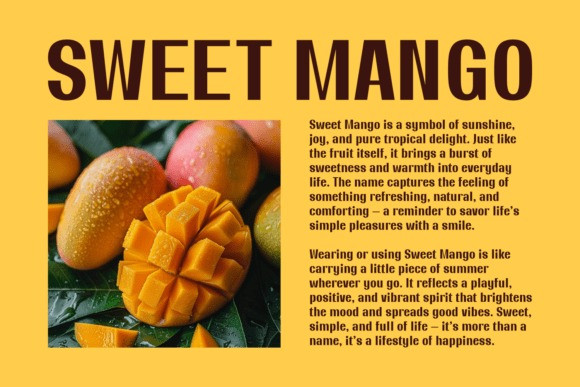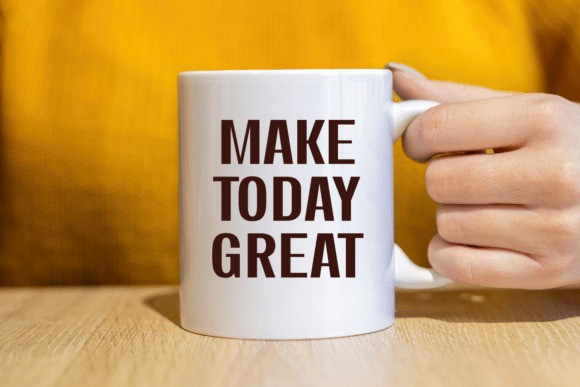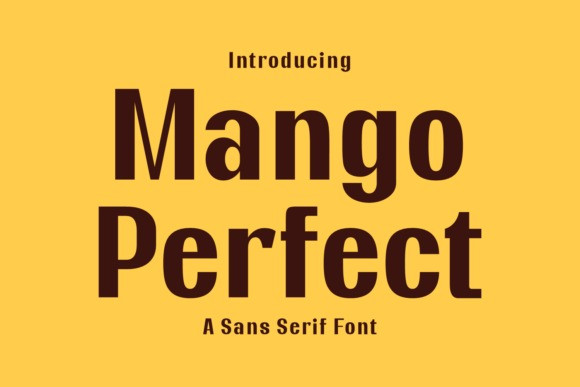
Mango Perfect Font is a bold and clean sans serif font with a modern yet approachable style. Its strong lines and balanced proportions make it highly versatile, perfect for branding, packaging, posters, headlines, and digital content. With a fresh and contemporary look, Mango Perfect brings clarity and confidence to any project while maintaining a friendly and stylish vibe.